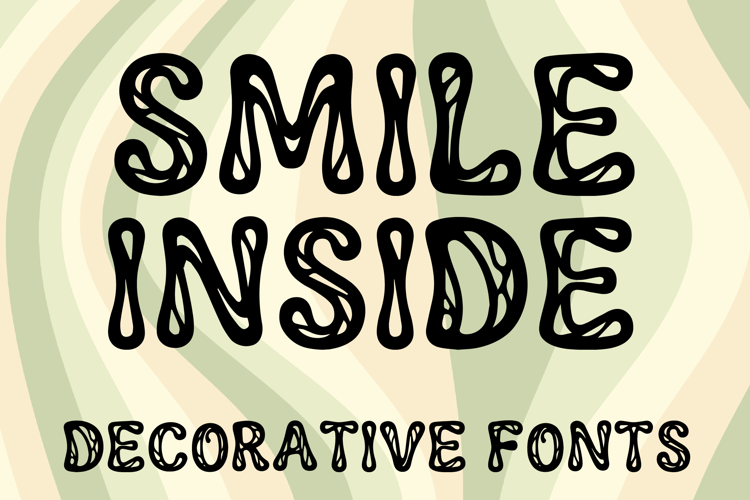
SMILE INSIDE
SMILE INSIDE is a bold decorative display font with a playful handcrafted style and artistic retro charm. Its uppercase letterforms feature thick rounded strokes, tall organic shapes, and distinctive cutout-like inner details that create a fun, expressive, and eye-catching look. Designed with uppercase letters A–Z and numbers 0–9, SMILE INSIDE is perfect for branding, posters, packaging, headlines, logos, social media graphics, and creative projects that need a cheerful and memorable statement.
SMILE INSIDE